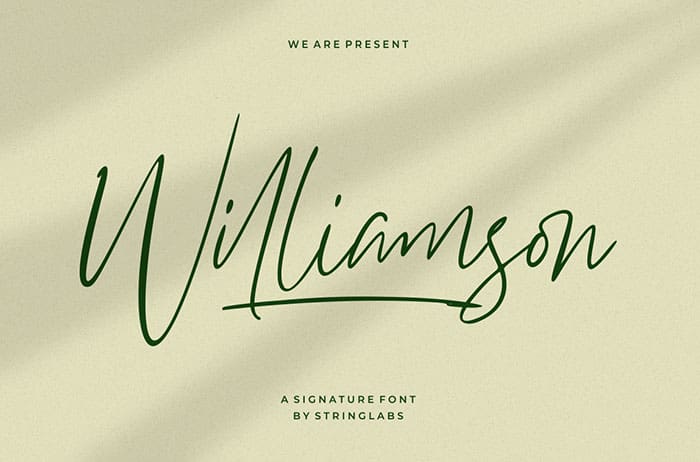
Williamson Luxury Signature Font
Williamson luxury signature font can be used for any variety of purposes, such as:Signature, Photography, Wedding Ceremony, Invitation, Packaging, Logo Type, Branding Design, and Fashion. This Font Template contains Modern, Elegant, Creative, Professional and Unique Concept. This font is available only for personal use. Created this font by StringLabs. You can also search more free Fonts. Thanks!